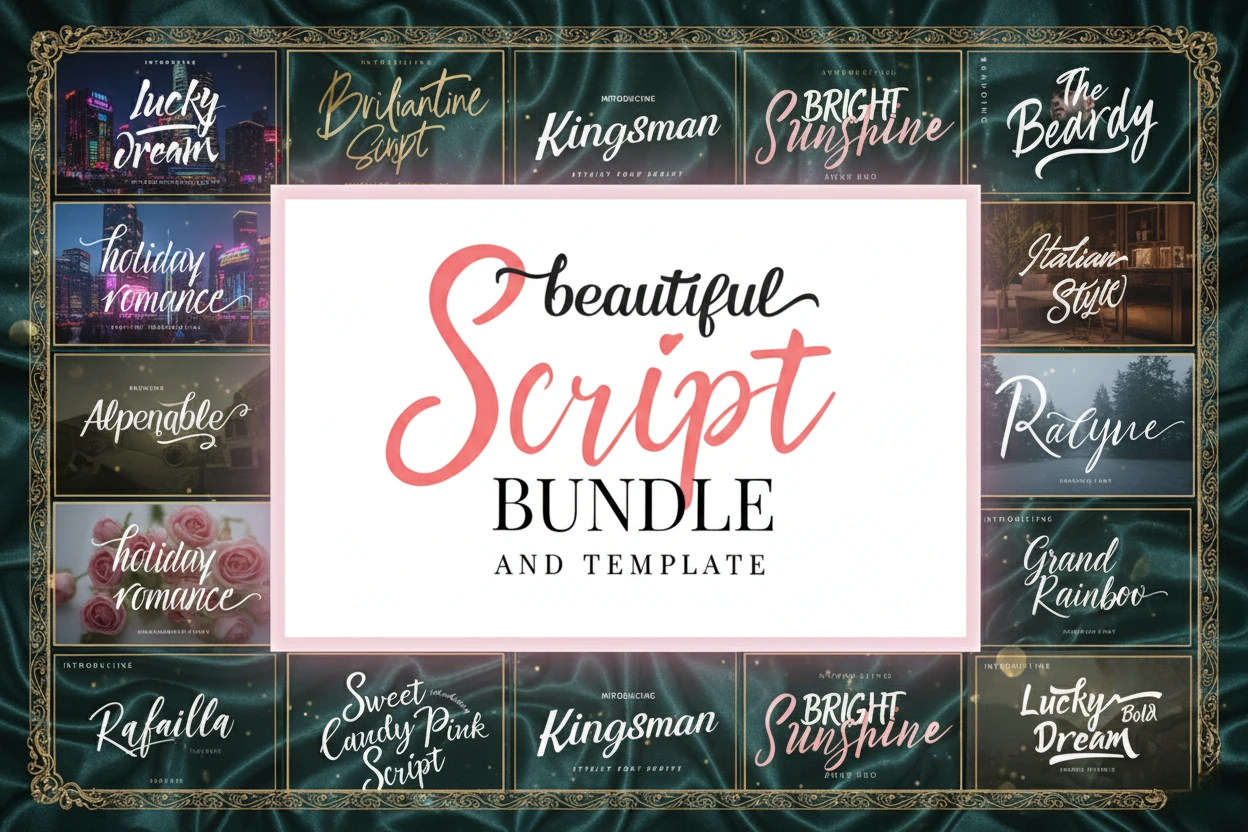
The Beautiful Script Fonts and Templates Bundle is a creative set to help make your work easier and improve your designs. Inside, you'll find several nice script fonts along with templates that are ready to use in PowerPoint, Keynote, Google Slides, Canva, and for Instagram posts and stories. Every font has smooth, stylish lines that are great for Cricut projects, sublimation prints, branding, invites, packaging, and nice social media images. The templates that come with it let you put together clean presentations, organized layouts, and good-looking images without having to begin with nothing. With fancy lettering and flexible design tools all together, this bundle is made to let designers create polished, interesting content fast.